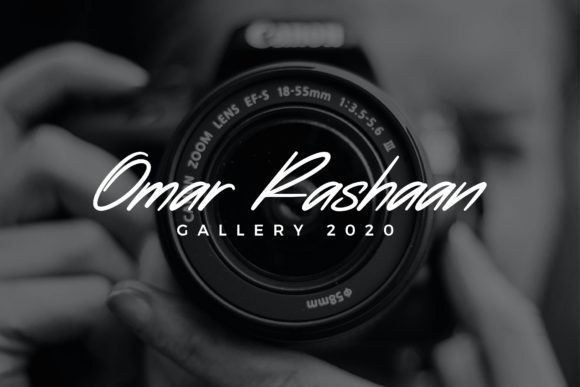
Rengganis Font
db-ku.com - Script & Handwritten -- Rengganis is a well balanced, refined script font that emanates sophistication and elegance. Its stylish alternates and ligatures make this font the perfect match for any project.